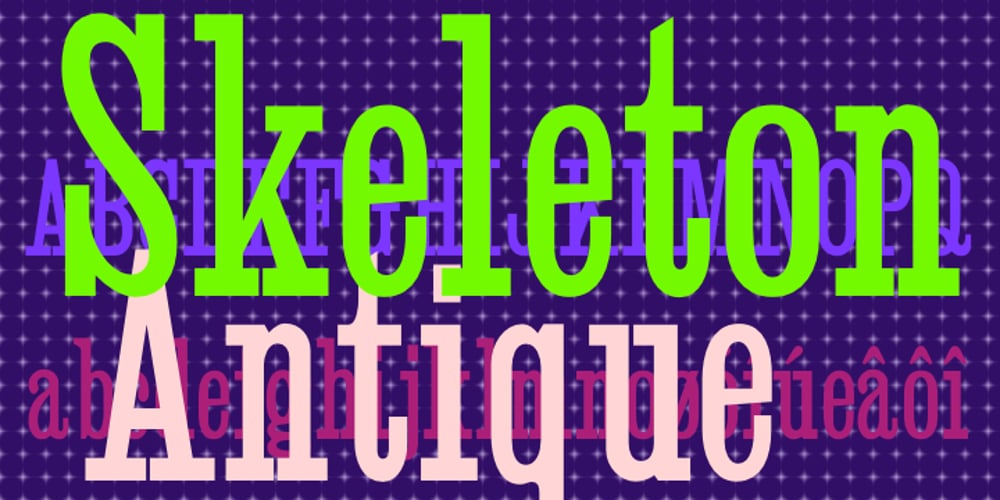
Skeleton Antique
Skeleton Antique font
Skeleton Antique Font Family was designed by William Hamilton Page, Jordan Davies and published by Wooden Type Fonts. Skeleton Antique contains 1 styles and family package options. A revival of one of the popular wooden type fonts of the 19th century. Suitable for text, a narrow, thin Antique, with flat unbracketed serifs.